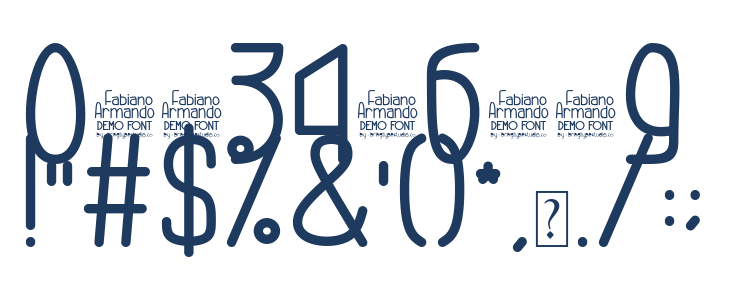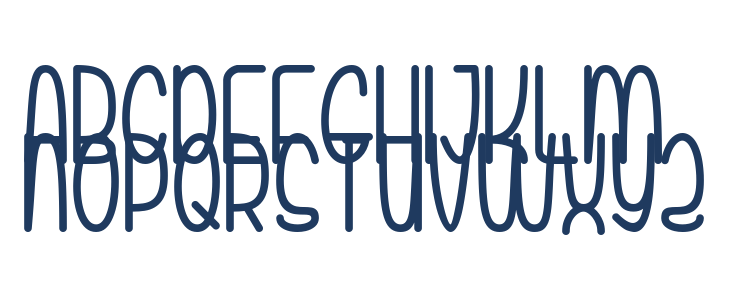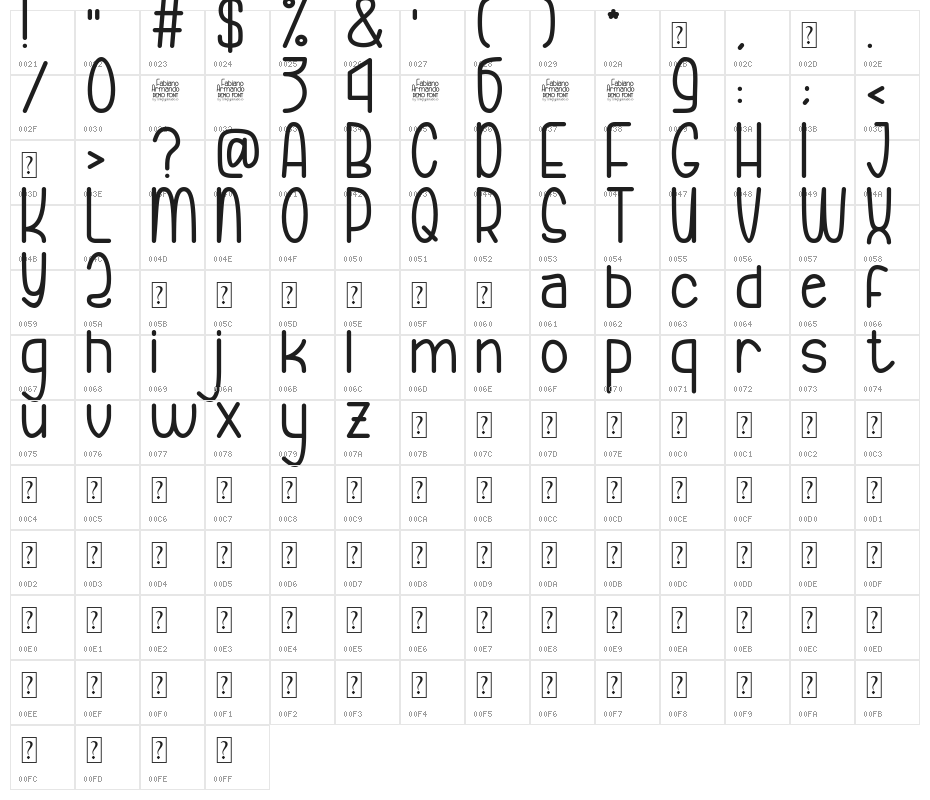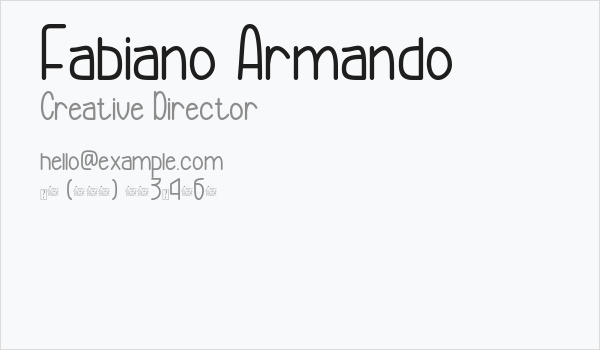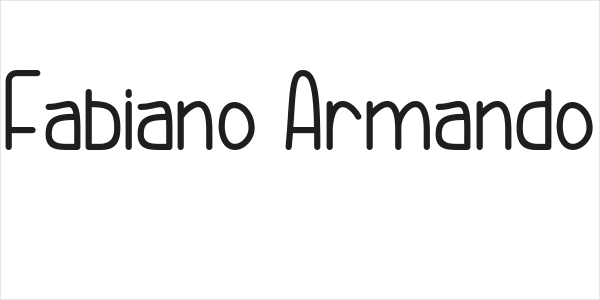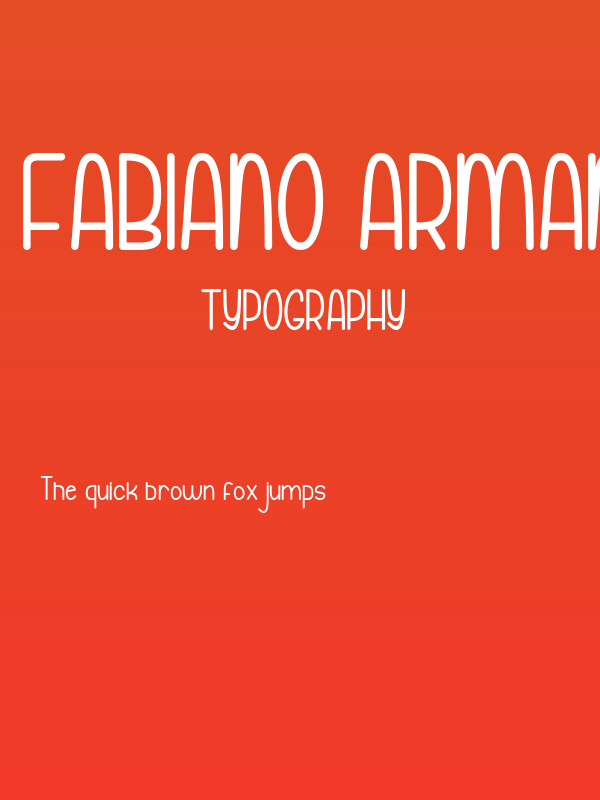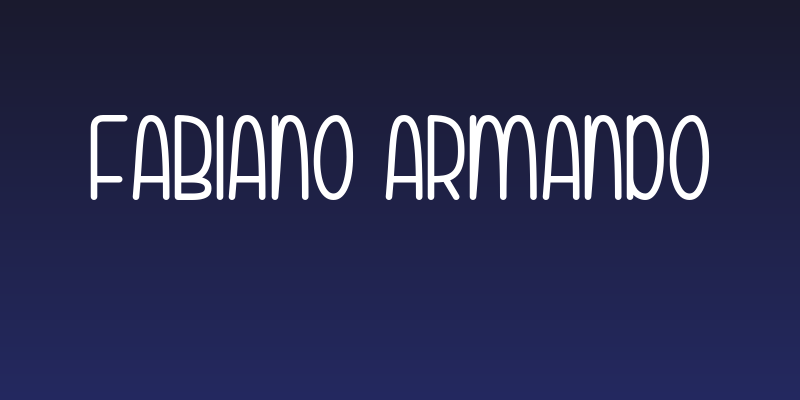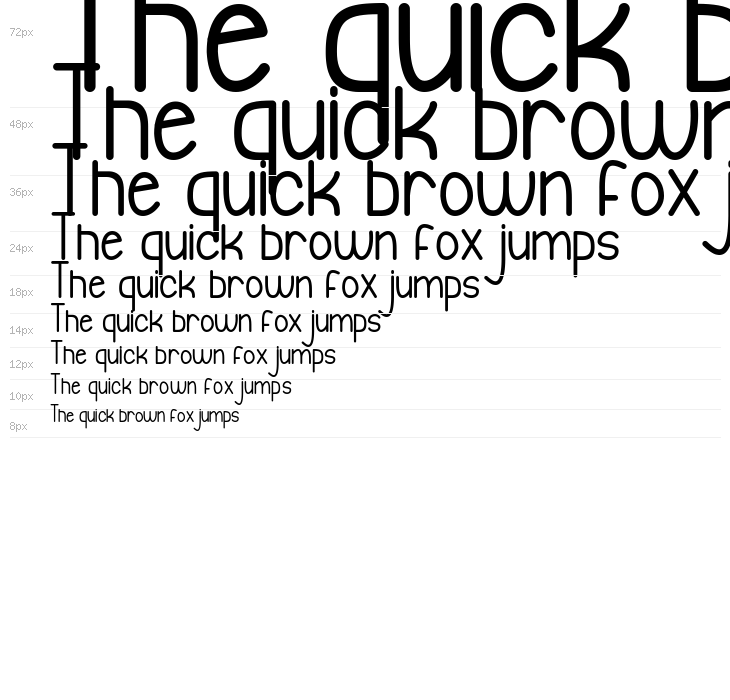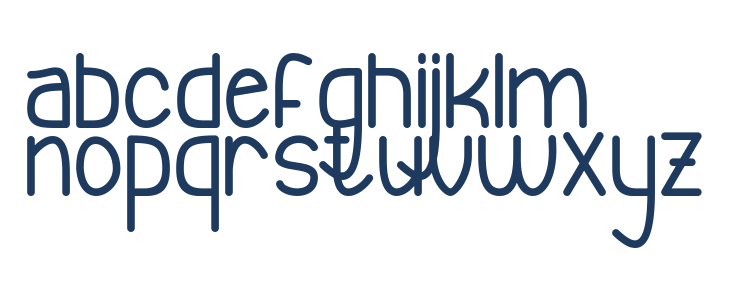
Fabiano Armando Font
Fabiano Armando Description
A playful, rounded sans-serif typeface with tall, narrow letterforms and consistent stroke width. The characters have a friendly, informal appearance, with open counters and slightly quirky proportions, especially in the uppercase and numerals.
| Overall Style | Playful, Modern, Informal |
| Use Case | Headlines, Posters, Logos, Display text |
| Proposed Projects | Children's books, posters, branding for creative businesses, packaging, informal invitations. |